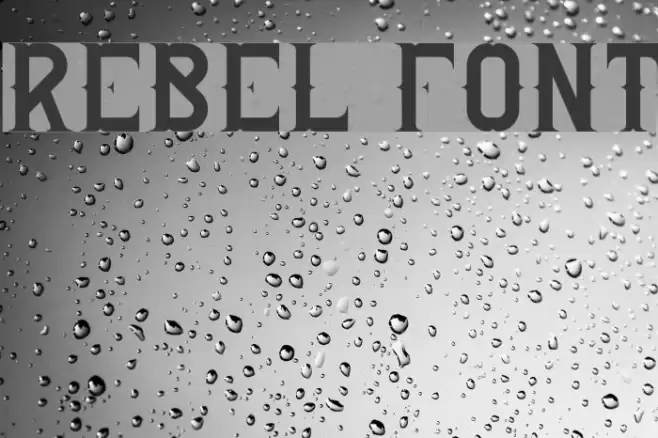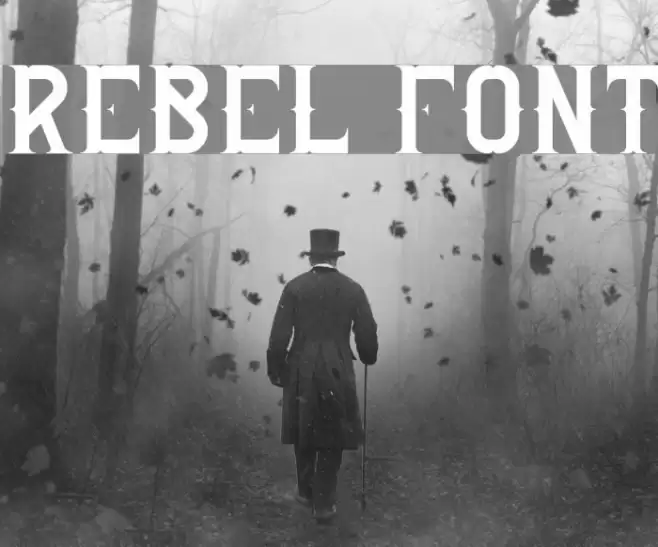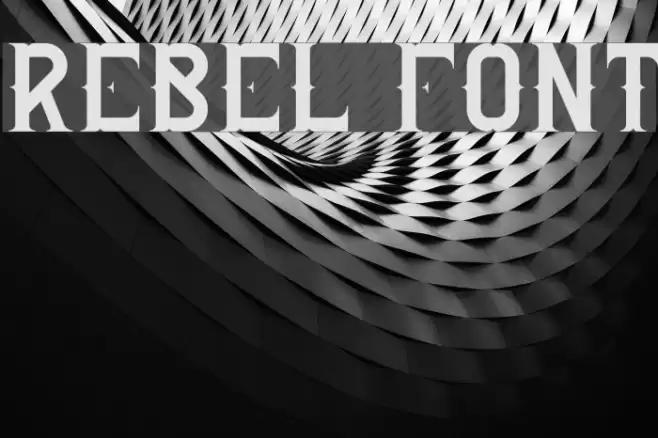
Rebel Font
Rebel Description
This font features a bold and striking design with a strong presence. The characters are crafted with sharp, angular edges and distinct serifs that give it a rebellious and edgy appearance. The uppercase letters are particularly prominent, with a uniform height and consistent stroke width, creating a cohesive look. The numerals are equally bold, maintaining the same angular style as the letters. Special characters are included, adding versatility to the font. This typeface is ideal for projects that require a bold statement, such as posters, headlines, or branding materials.
A bold, angular serif font with a rebellious and edgy style from Uncategorized fonts.
- Proposed Projects: Ideal for posters, headlines, branding, and any design needing a bold statement.